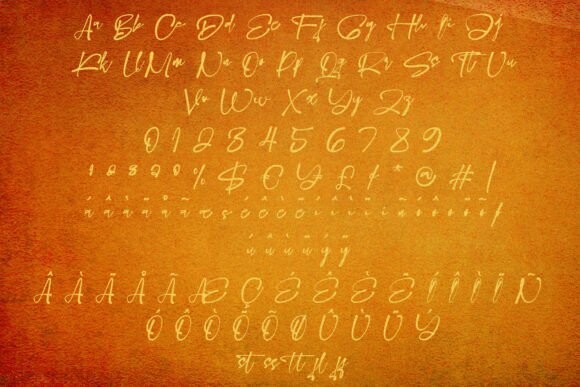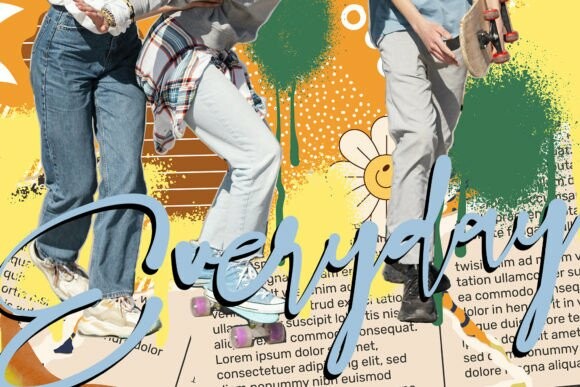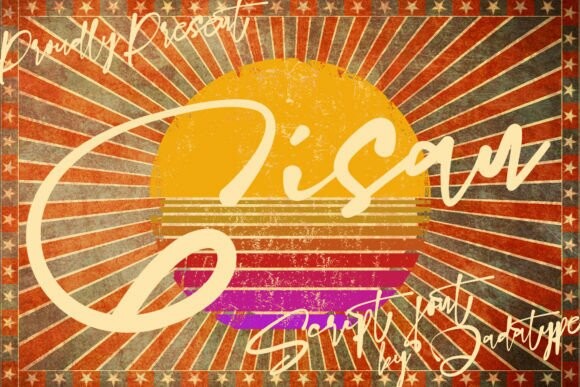
Gisan Font
Gisan Font, a chic handwritten script characterized by its effortlessly smooth brush strokes. This font breathes style and enhances elegance, as it dexterously tilts between authentic handwritten charm and sophisticated craftsmanship. Gisan rightly conjures an exquisite versatility ranging from modern design projects to vintage-inspired creations.